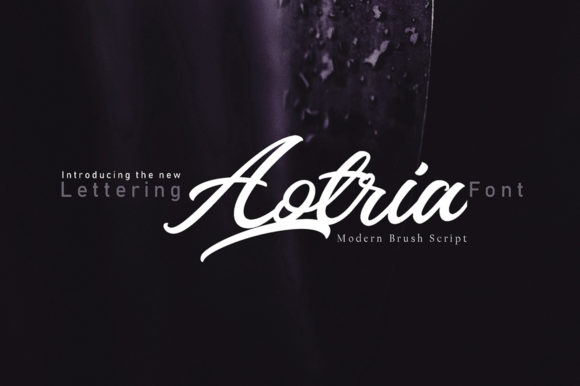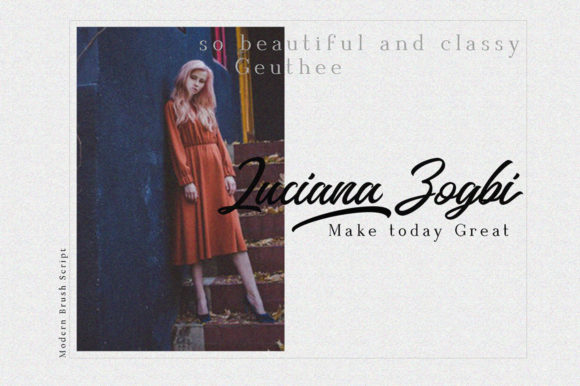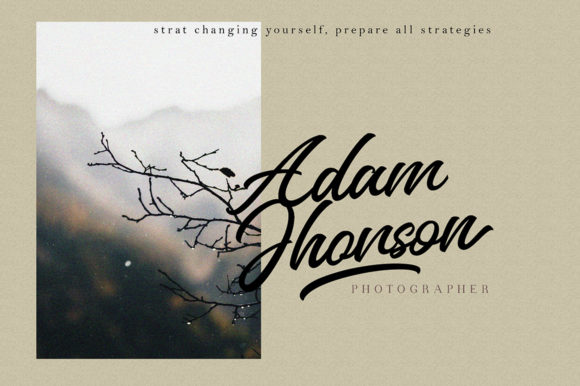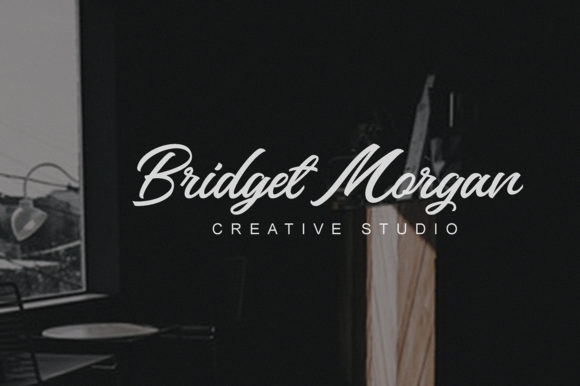
Aotria Font
About Aotria Font
The Aotria is a striking handwritten font with an elegant touch. This brush font is perfect for logos, t-shirts, product packaging, headers, posters, greeting cards, and much more.